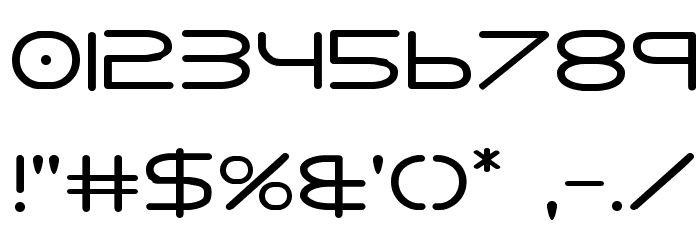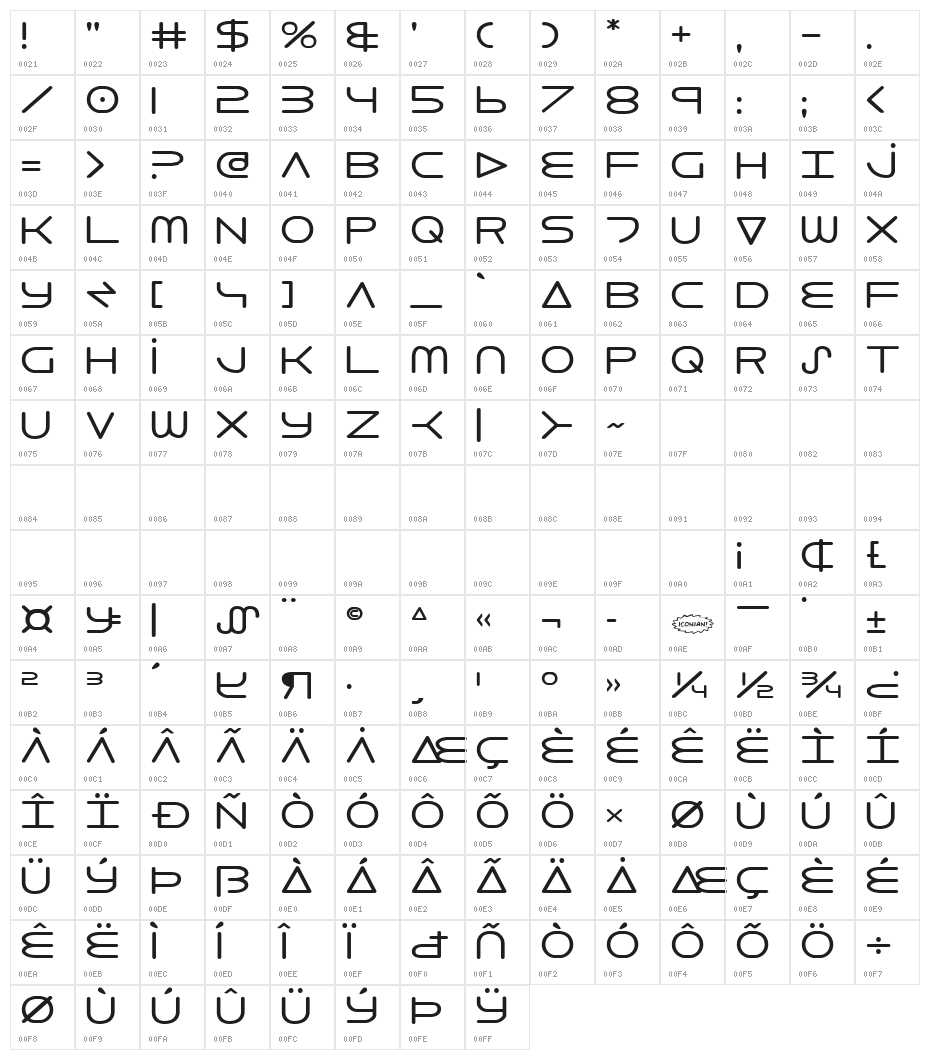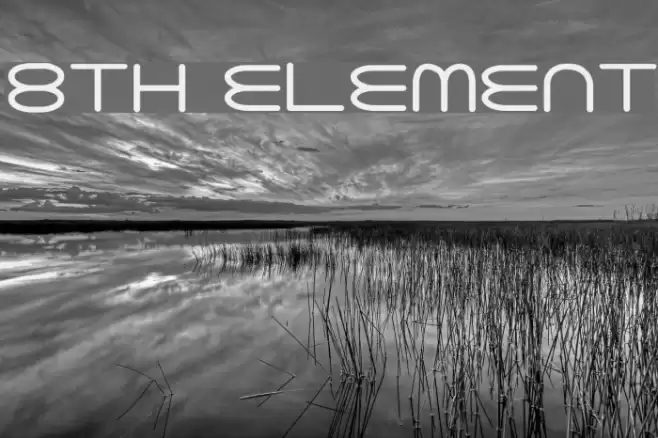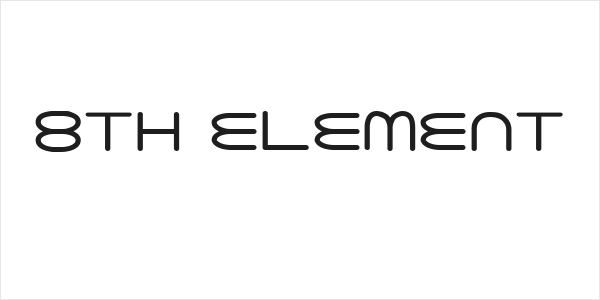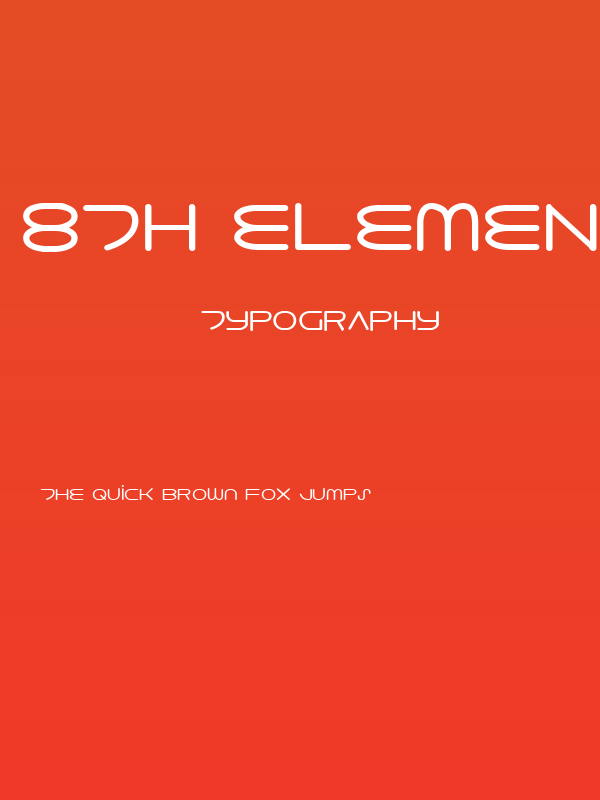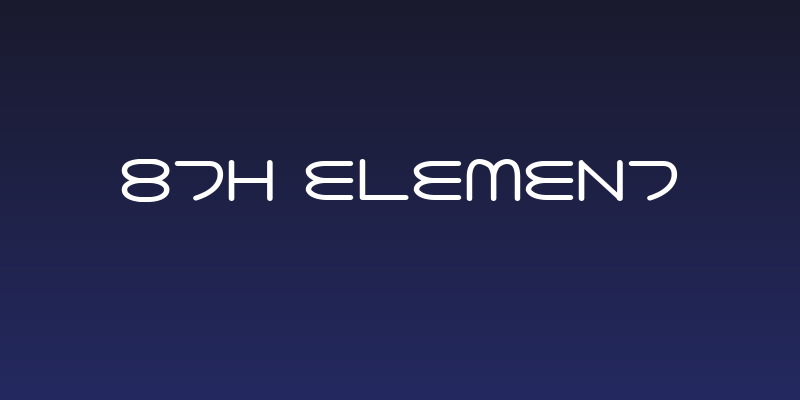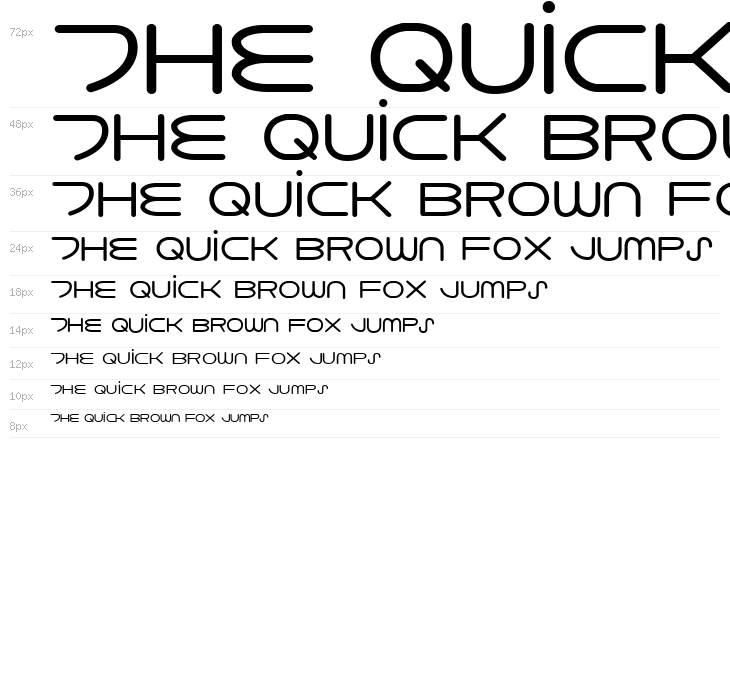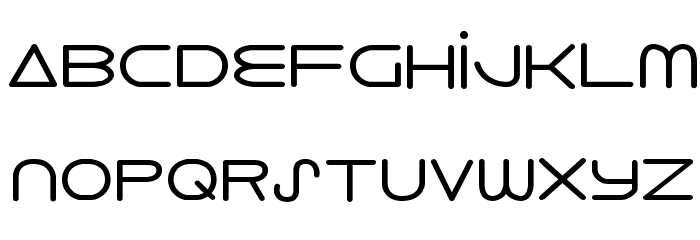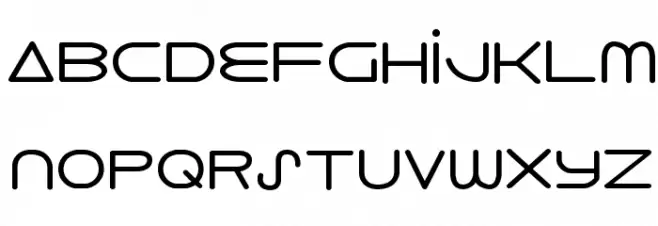
8th Element Font
8th Element Description
This font features a futuristic and geometric design, characterized by its unique angular and curved elements. The uppercase letters have a distinct, almost sci-fi appearance, with some characters incorporating triangular and diagonal strokes that give them a dynamic feel. The lowercase letters maintain a consistent style, with smooth curves and a modern aesthetic. Numbers are designed with a similar geometric approach, ensuring uniformity across the font. Special characters are creatively integrated, maintaining the overall theme. This font is ideal for projects that require a modern, tech-inspired look.